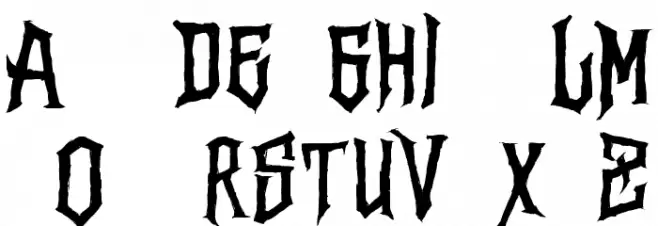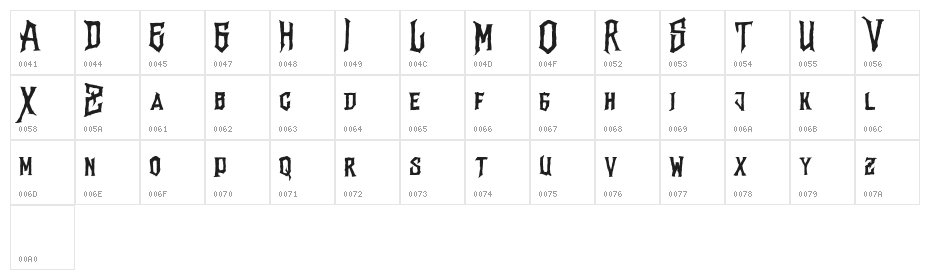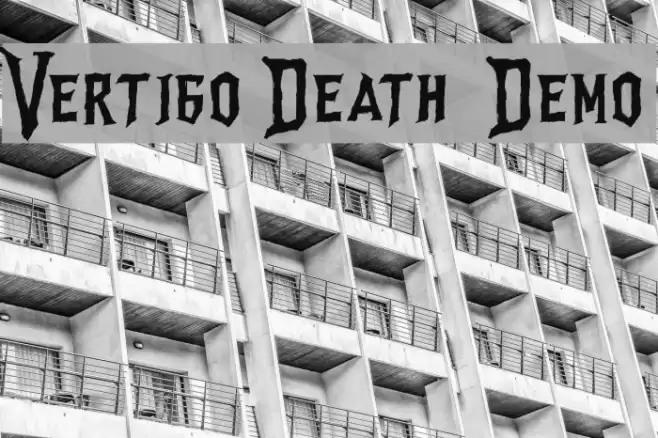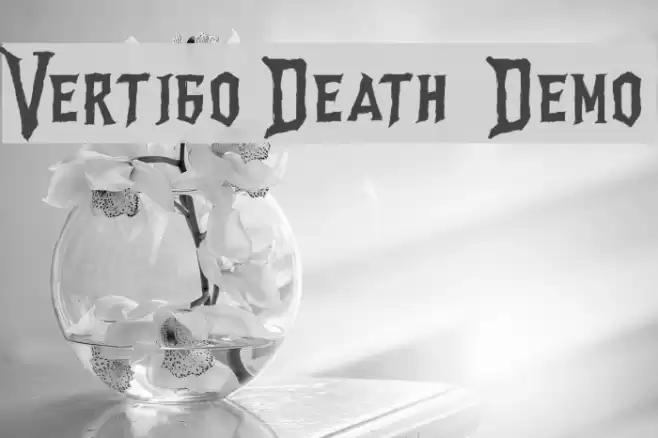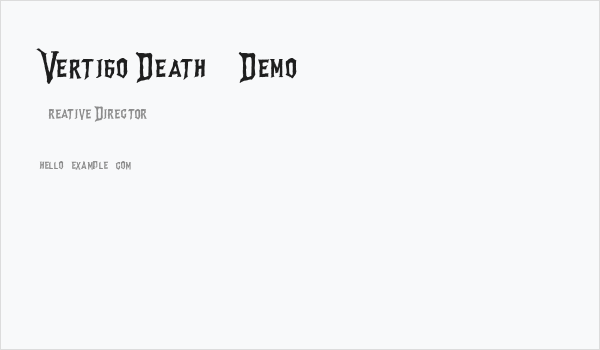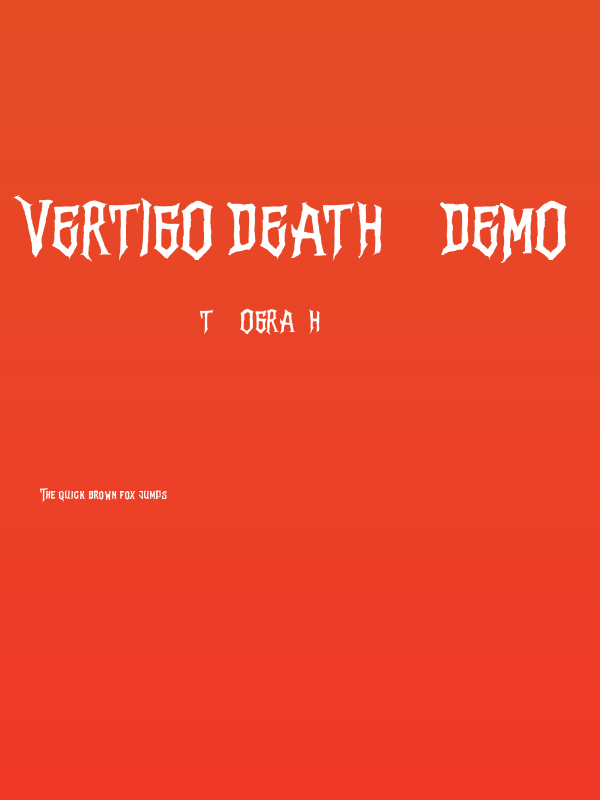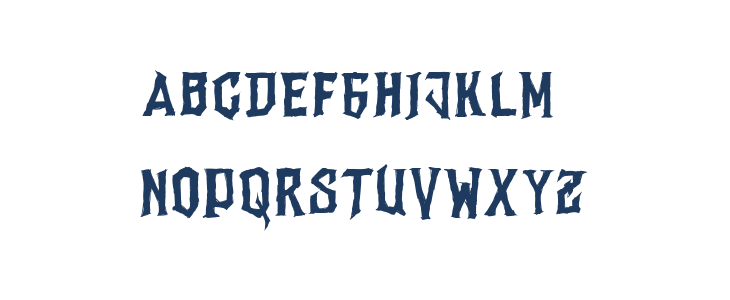
Vertigo Death - Demo Font
Vertigo Death - Demo Description
This font features a bold and jagged design, reminiscent of gothic or horror themes. The characters are sharply angular with irregular edges, giving them a distressed and edgy appearance. The uppercase letters are particularly striking, with exaggerated serifs and a sense of movement that suggests a hand-drawn style. The lowercase letters maintain this aesthetic, though they are slightly more subdued. The numbers and special characters follow the same design principles, ensuring consistency across the font. This style is highly decorative and would stand out in any design that requires a dramatic and intense visual impact.
| Overall Style | Gothic, Horror |
| Use Case | Headlines, Posters, Logos |
| Proposed Projects | Ideal for horror movie posters, Halloween event flyers, or any project needing a dramatic, edgy typeface. |